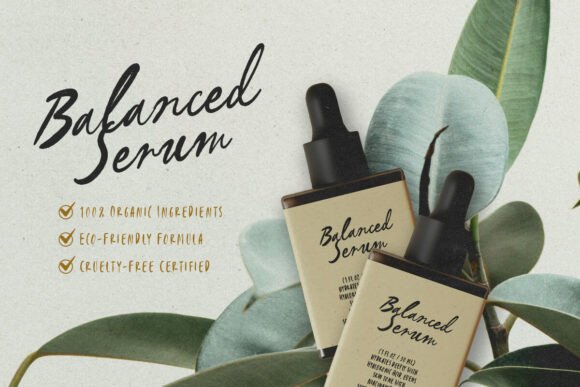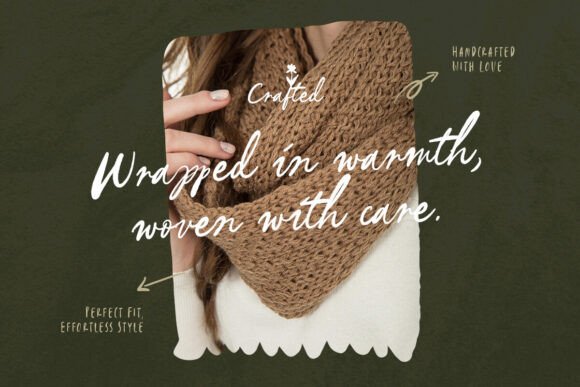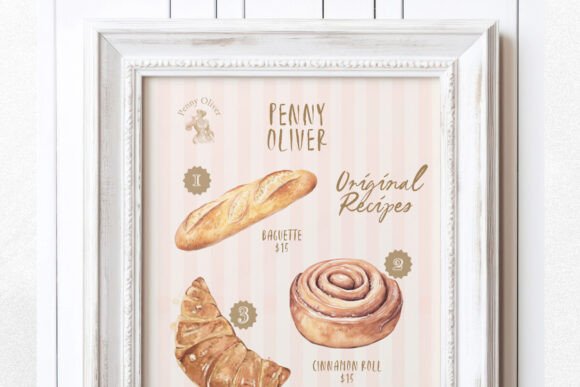
Introduction to Mersilla Font
Have you ever stared at a blank page, waiting for inspiration to strike? For many designers, the blank canvas can be both a blessing and a curse. But what if you had the perfect design resource to spark your creativity and bring your ideas to life? Enter the Mersilla Font, a stunning collection of handmade fonts that’s sure to elevate your next creative project.
Whether you’re working on a branding project, crafting a custom logo, or designing a beautiful quote for a loved one, the Mersilla Font has got you covered. With three versatile styles – script, sans, and doodle – you can choose the perfect look to match your vision. And with its transparent background option, you can easily overlay your design on any image or background.
What sets the Mersilla Font apart is its high-quality design and free download option, making it an invaluable resource for designers of all levels. With its multilingual support, you can create designs that reach a global audience, and its charming hand-drawn elements will add a personal touch to any project.
Key Features of Mersilla Font
- High-quality, professional font designed for various creative projects, including graphic design, digital art, and more.
- Comes with a transparent background, making it easy to use as a design resource in a variety of applications.
- Features a clean and modern design, with a large x-height and subtle flair, making it perfect for use in headings and titles.
- Has a high resolution, making it suitable for use in large formats, such as posters and billboards.
- Designed to be highly legible, even at small font sizes, making it an excellent choice for use in body text and captions.
Honest Review: Mersilla Font
I recently stumbled upon the Mersilla Font while searching for a high-quality font to use in my creative project. As a designer, I was excited to give it a try and see if it would meet my expectations.
First impressions are important, and Mersilla Font definitely made a good one. The font is clean, modern, and very easy to read. The transparent background allows for seamless integration with any design, making it a great addition to any design resource.
- What works well: ✨ High-quality design, modern aesthetic, and easy to read.
However, I did encounter some limitations. The font is only available in a limited range of weights, which may not be suitable for all design projects.
- Limitations: ⚠️ Limited range of weights available.
Overall, I was impressed with the Mersilla Font. It’s a great addition to any design resource and is perfect for designers looking for a high-quality font for their creative project.
Mersilla Font is a versatile font that can be used for a variety of creative projects, including logos, graphics, and typography. Some common use cases include creating social media graphics, designing business cards, and creating presentations. To get the most out of Mersilla Font, experiment with different font sizes, colors, and styles to find the look that works best for your project.